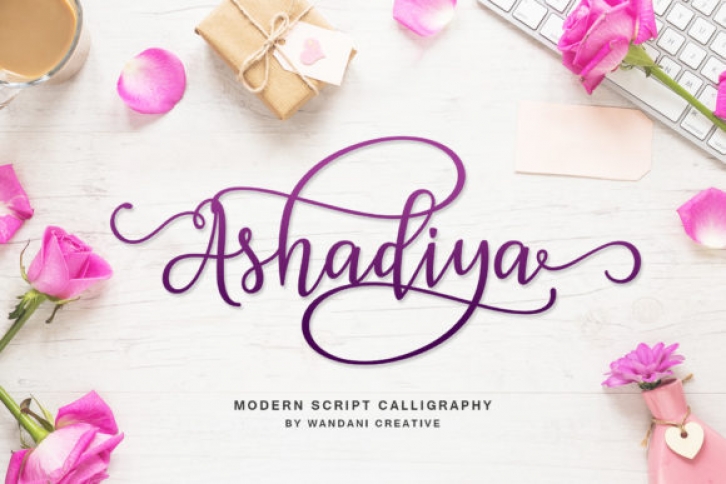
Ashadiya is a beautiful must-have font that will fit all types of designs. With it’s bold swashes, it’s perfect for greeting cards, branding, stationery design, social media, packaging, magazine layouts, prints and a lot more.